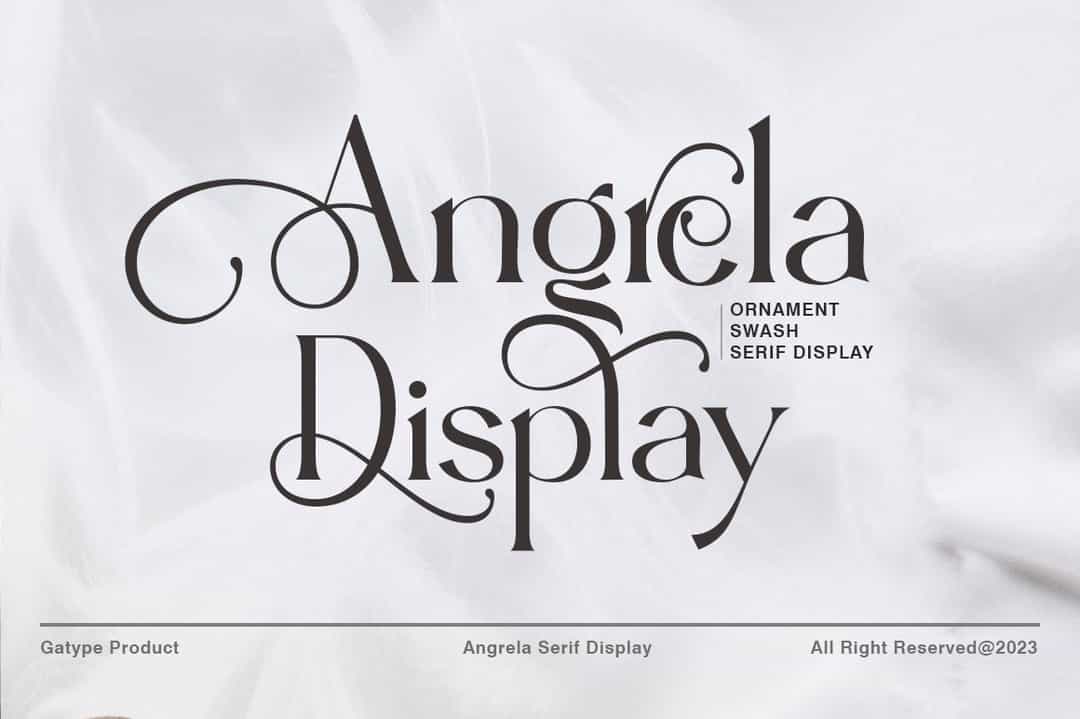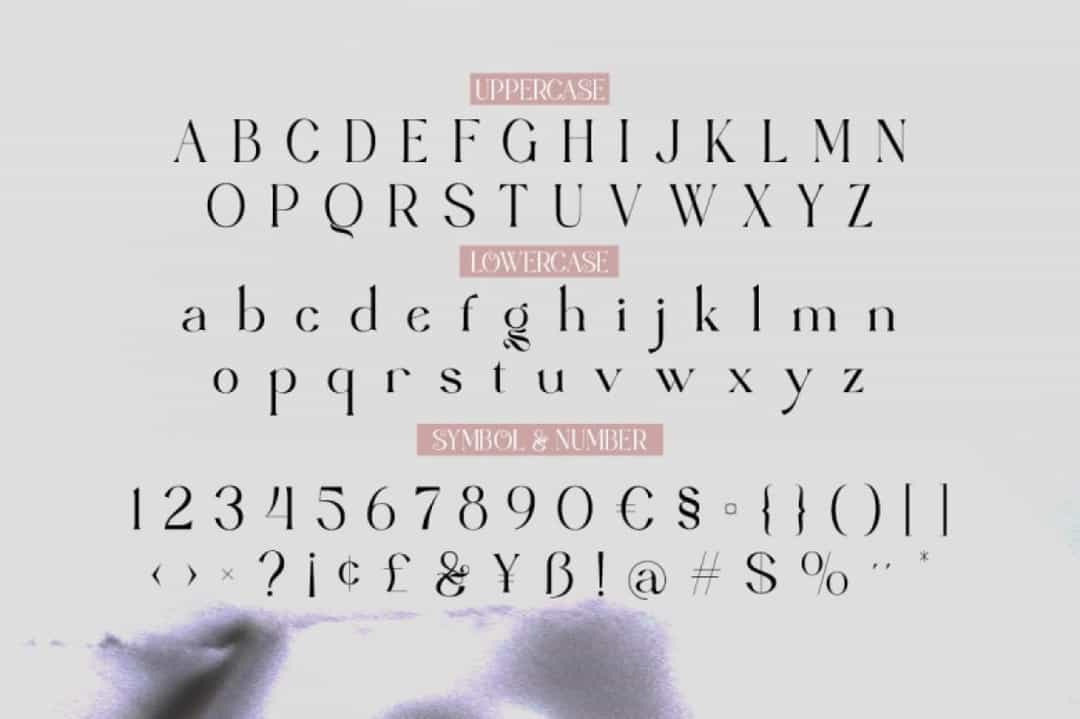
Angrela is an ornamental serif typeface with a lovely, elegant, luxurious modern, unique, and elegant appearance that makes for the ideal typeface choice in numerous settings such as extravagant themes, brand and design projects magazine articles, Social Media branding logos brand names website headers or text overlay on images; many applications of which require its luxury finishing.